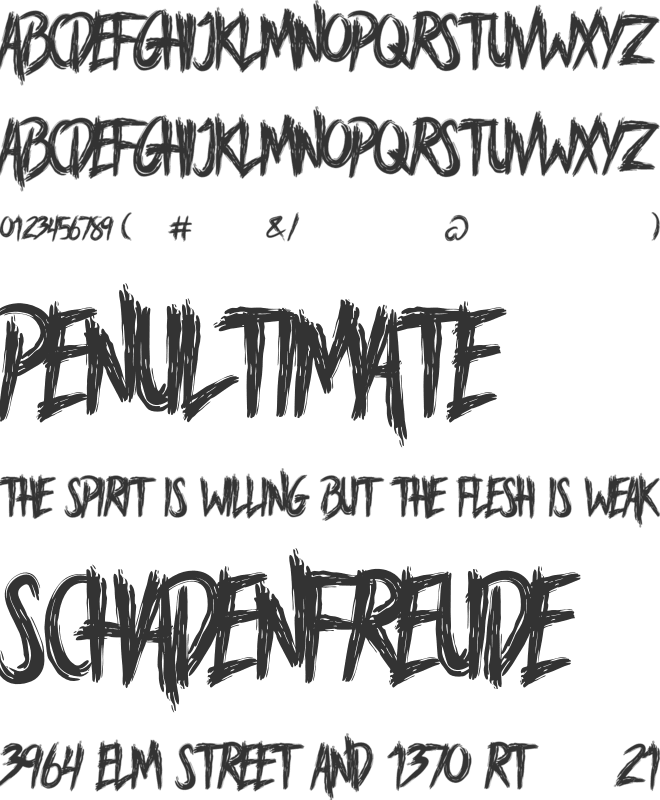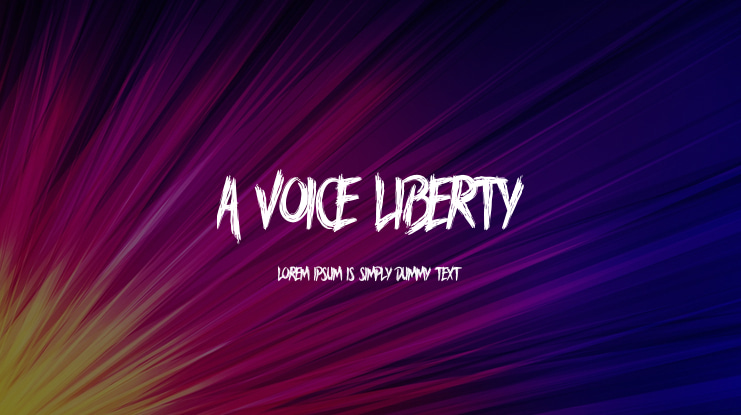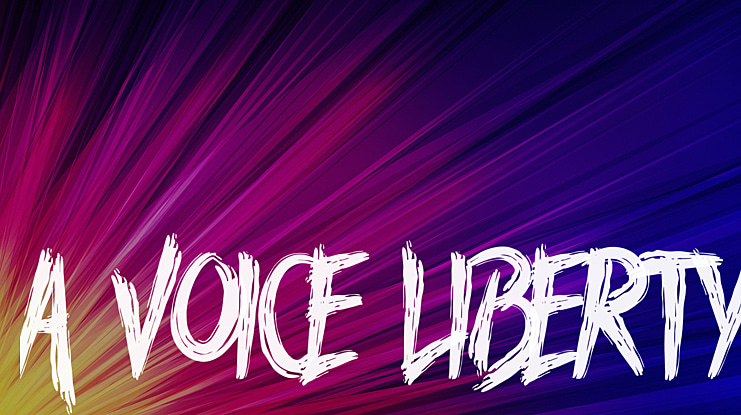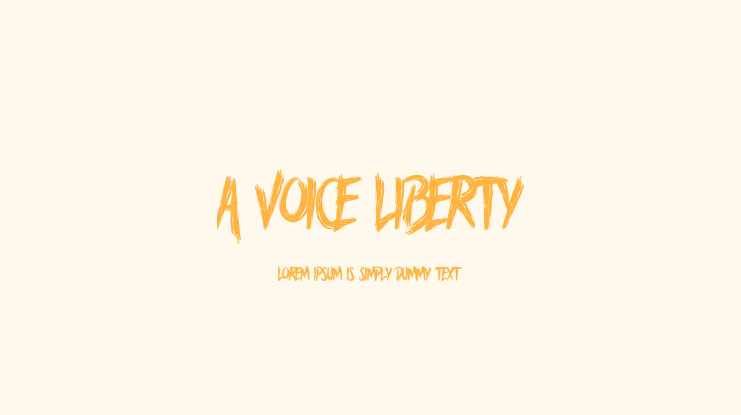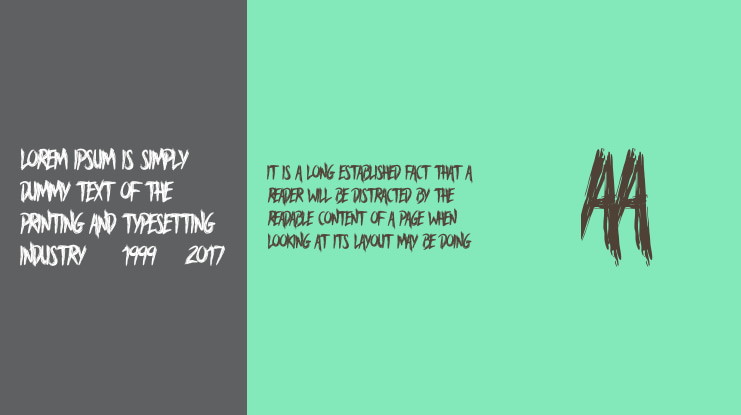
A Voice Liberty Font
A Voice Liberty is a fun display typeface. It will lift your design and add a cheeky touch to each of your creations. Use this font for your designs and explore its endless possibilities.